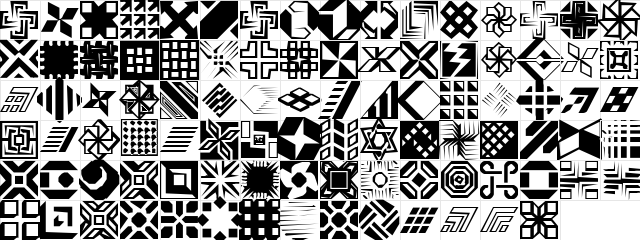
WociDings Regular
Design Context for WociDings Typeface
WociDings is a composed and adaptable typeface that performs quietly and consistently across a wide range of design contexts.